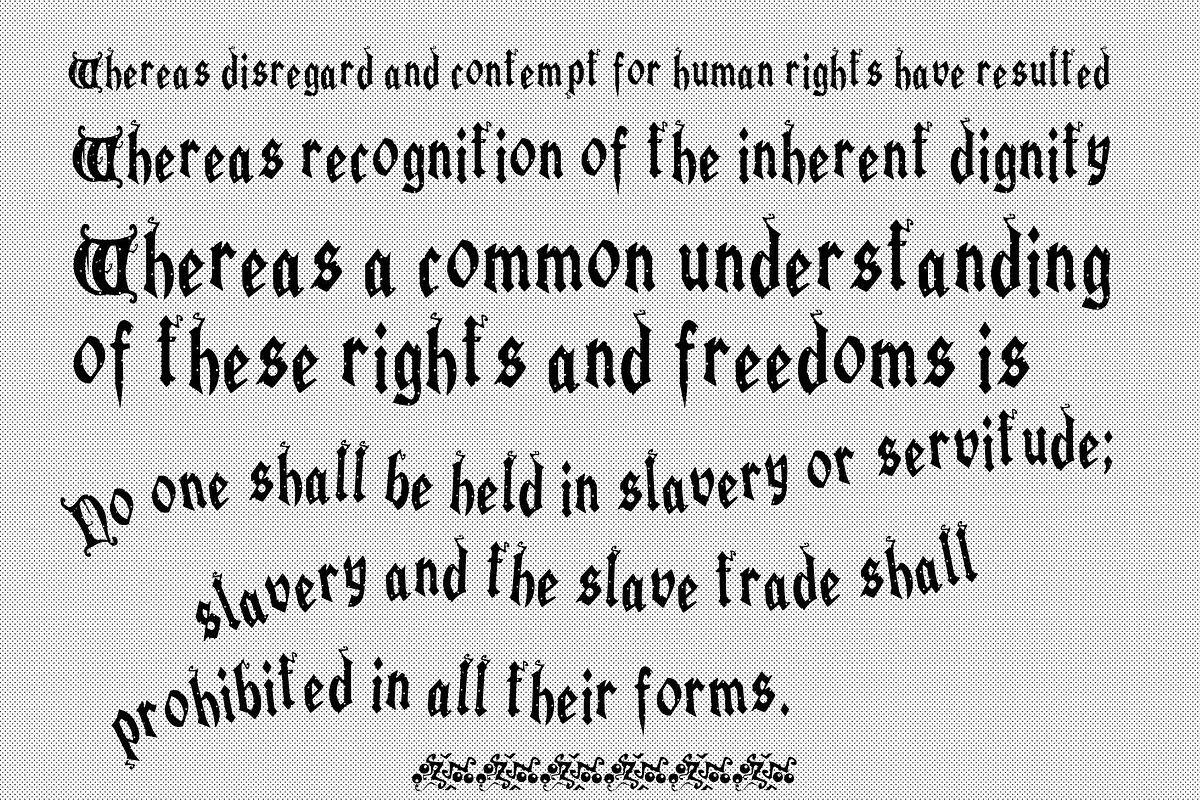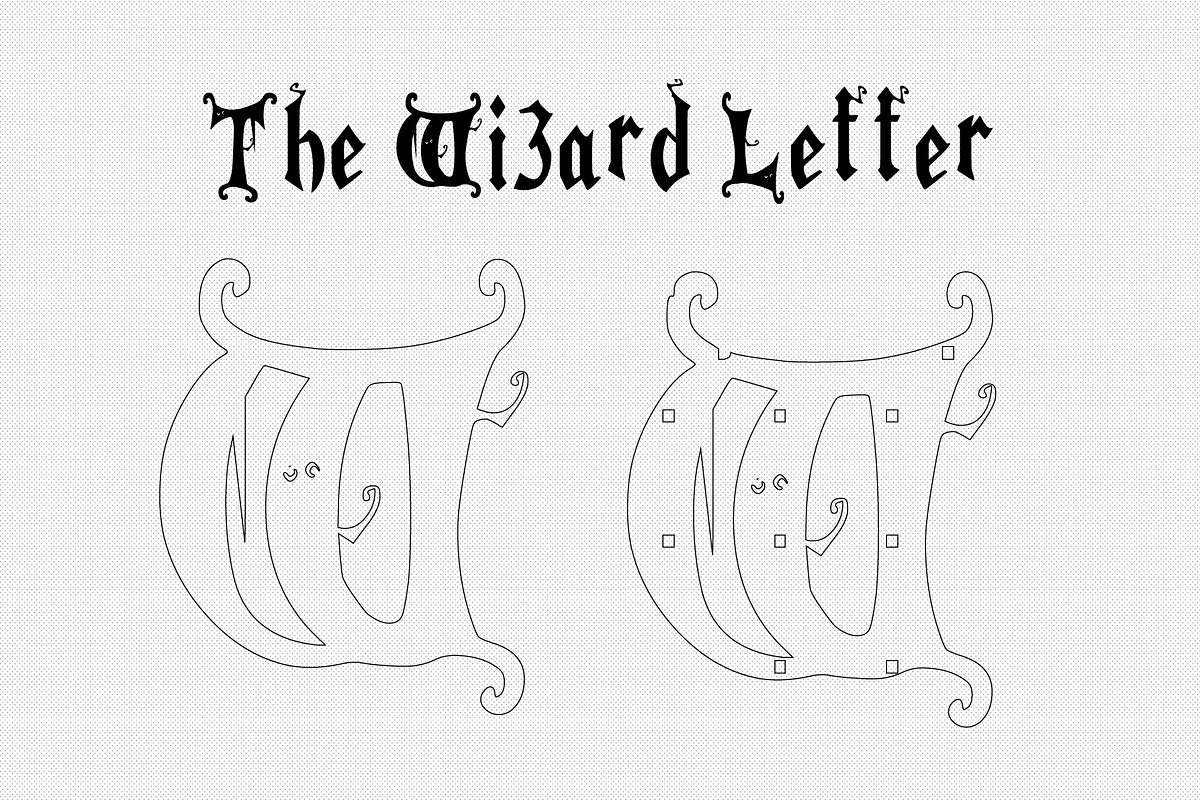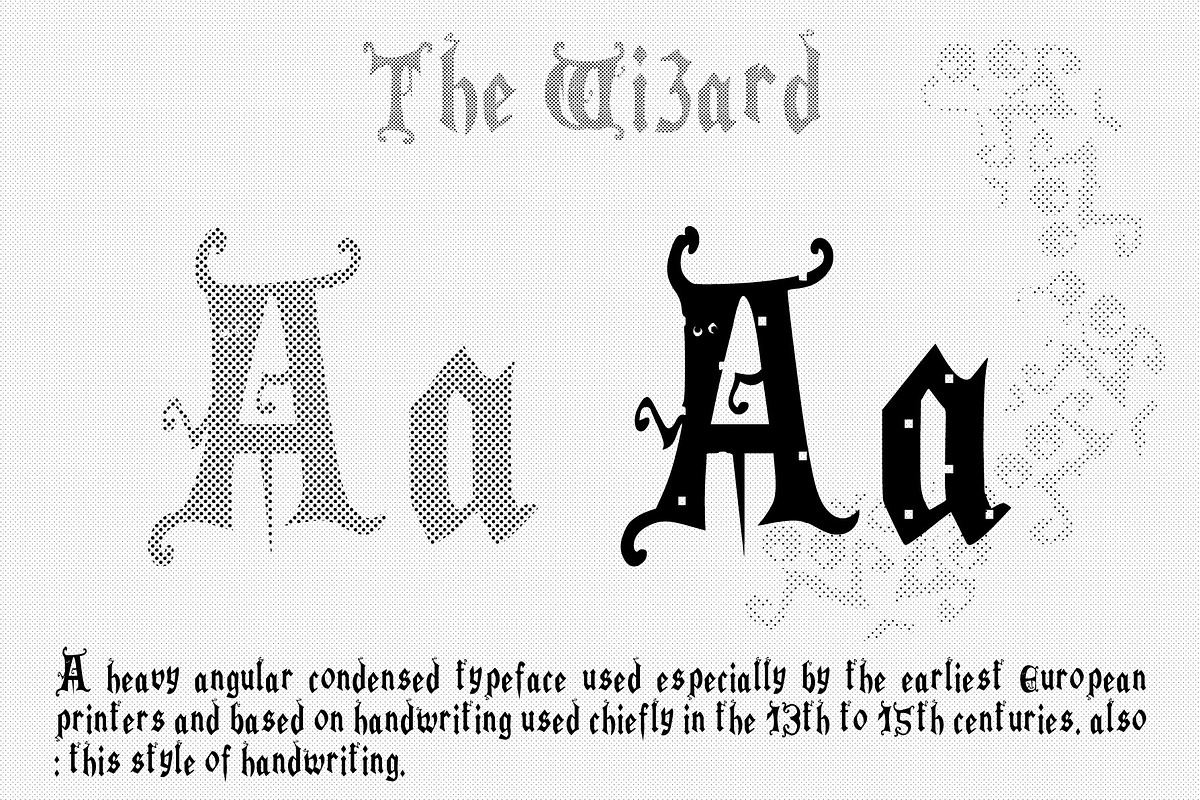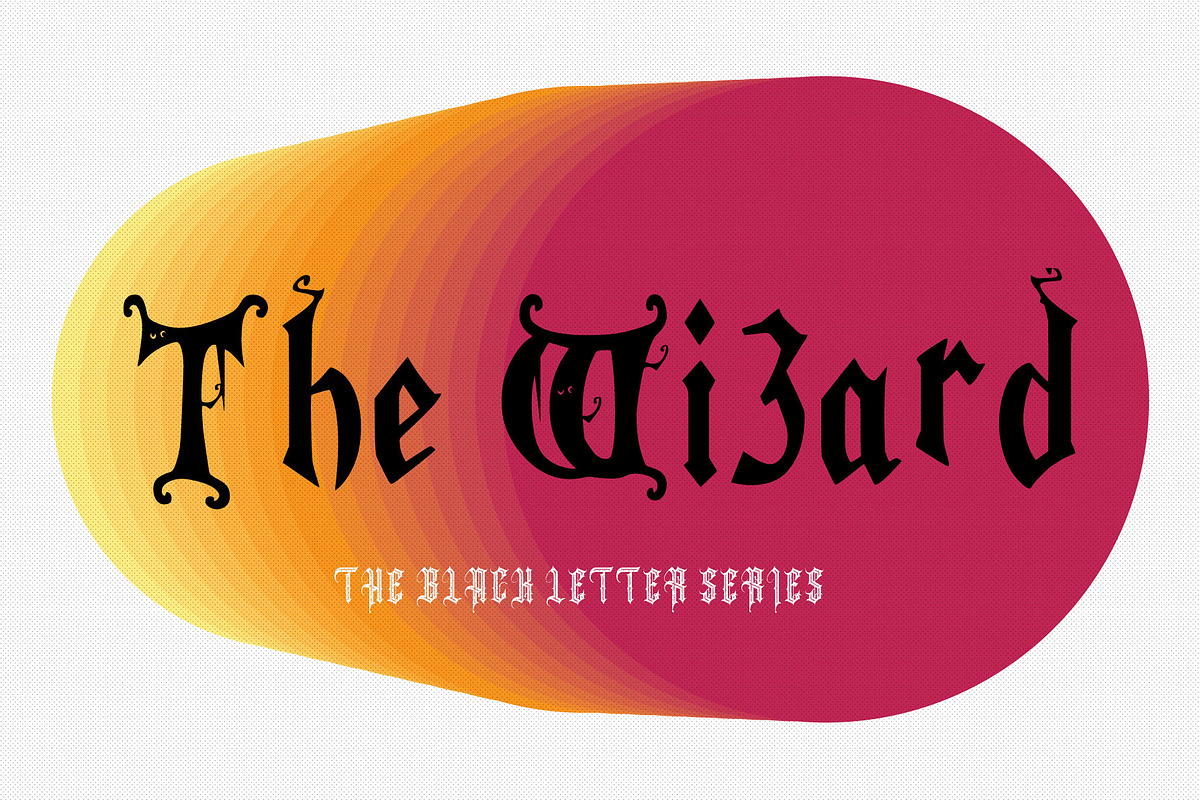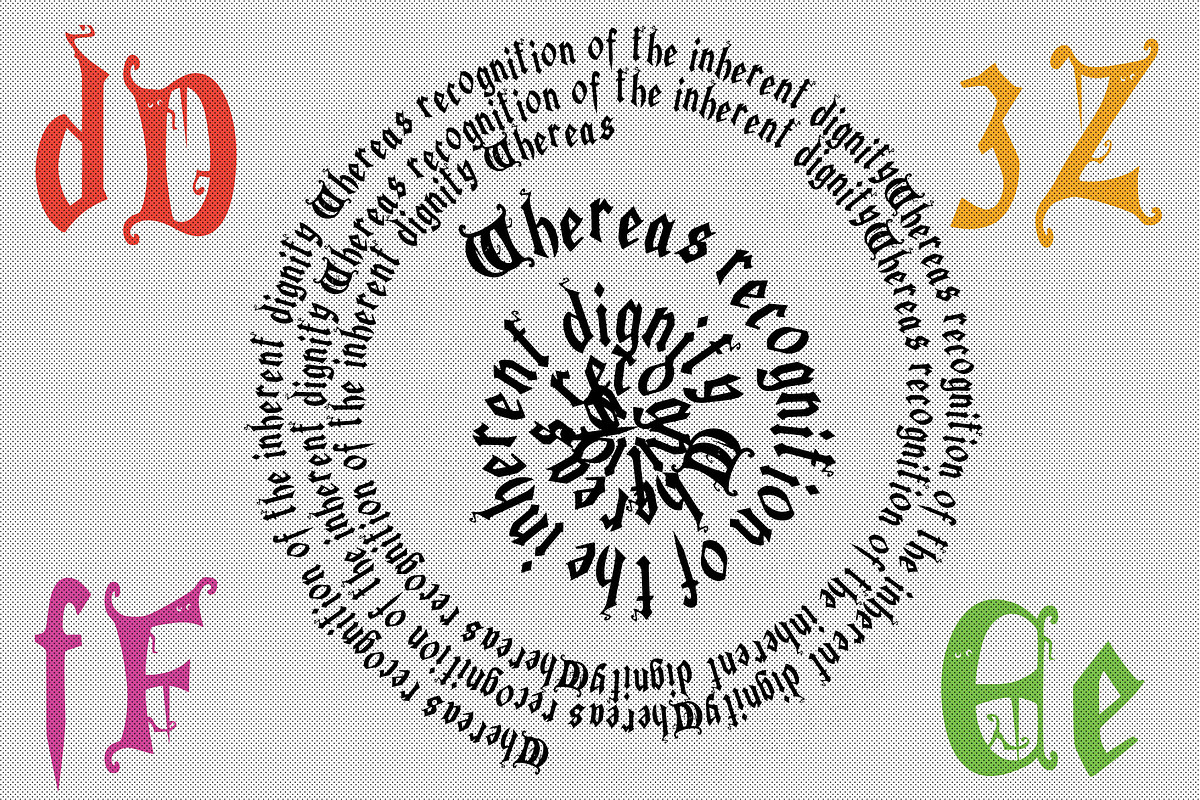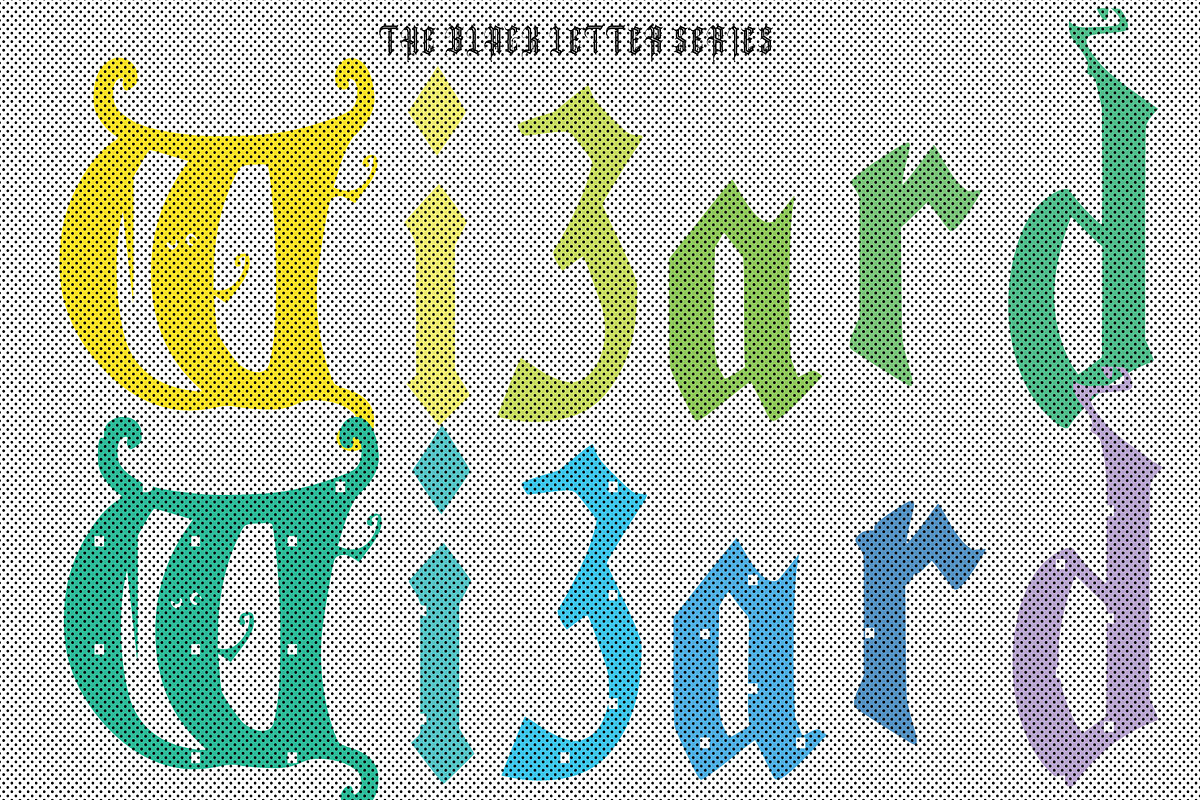
Wizard Letter Gothic
The Wizard Letter, The Black Letter Series
The Wizard Letter OXT
Carolingian minuscule was the direct ancestor of blackletter. Blackletter developed from Carolingian as an increasingly literate 12th-century Europe required new books in many different subjects. New universities were founded, each producing books for business, law, grammar, history and other pursuits, not solely religious works, for which earlier scripts typically had been used